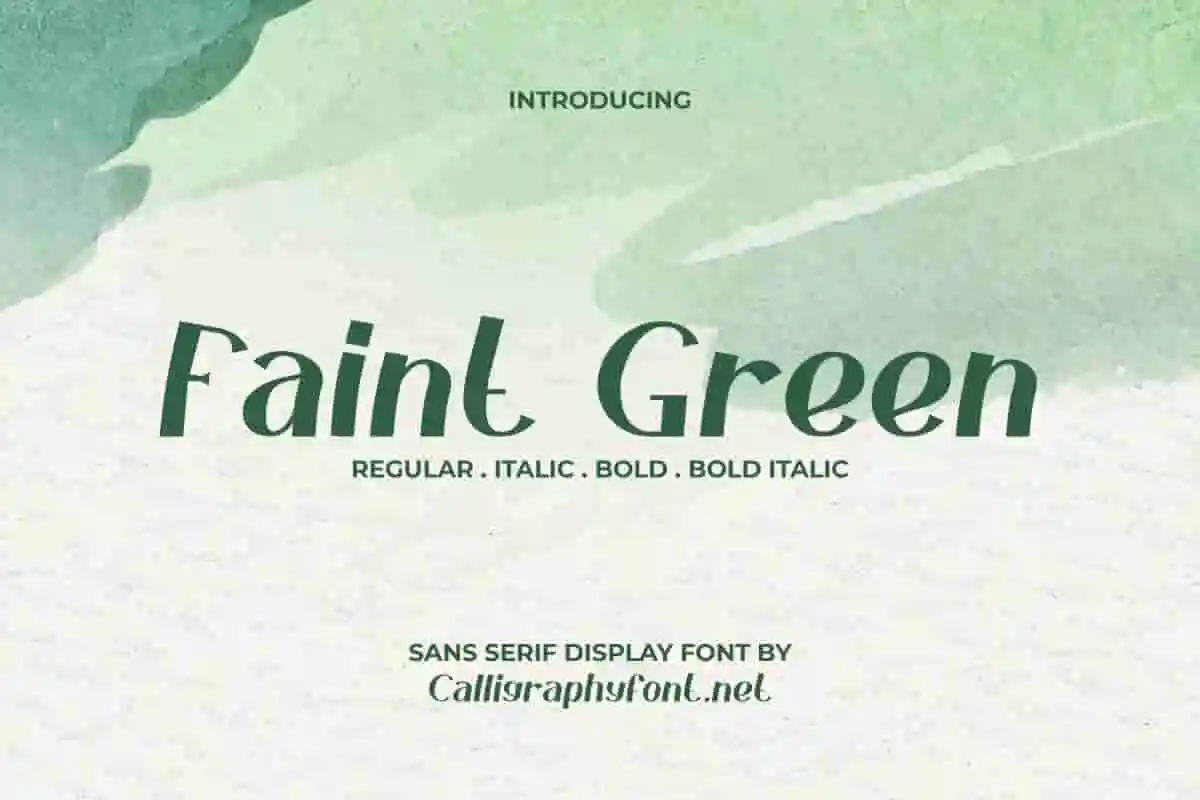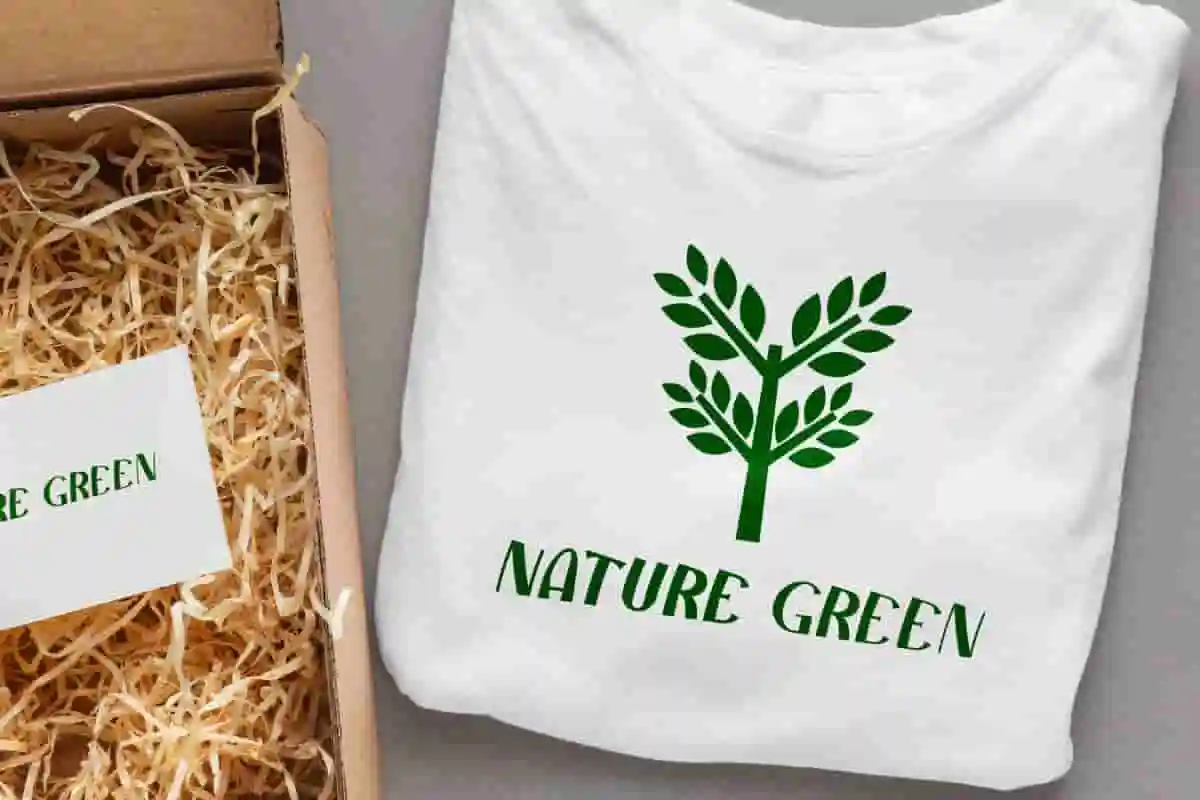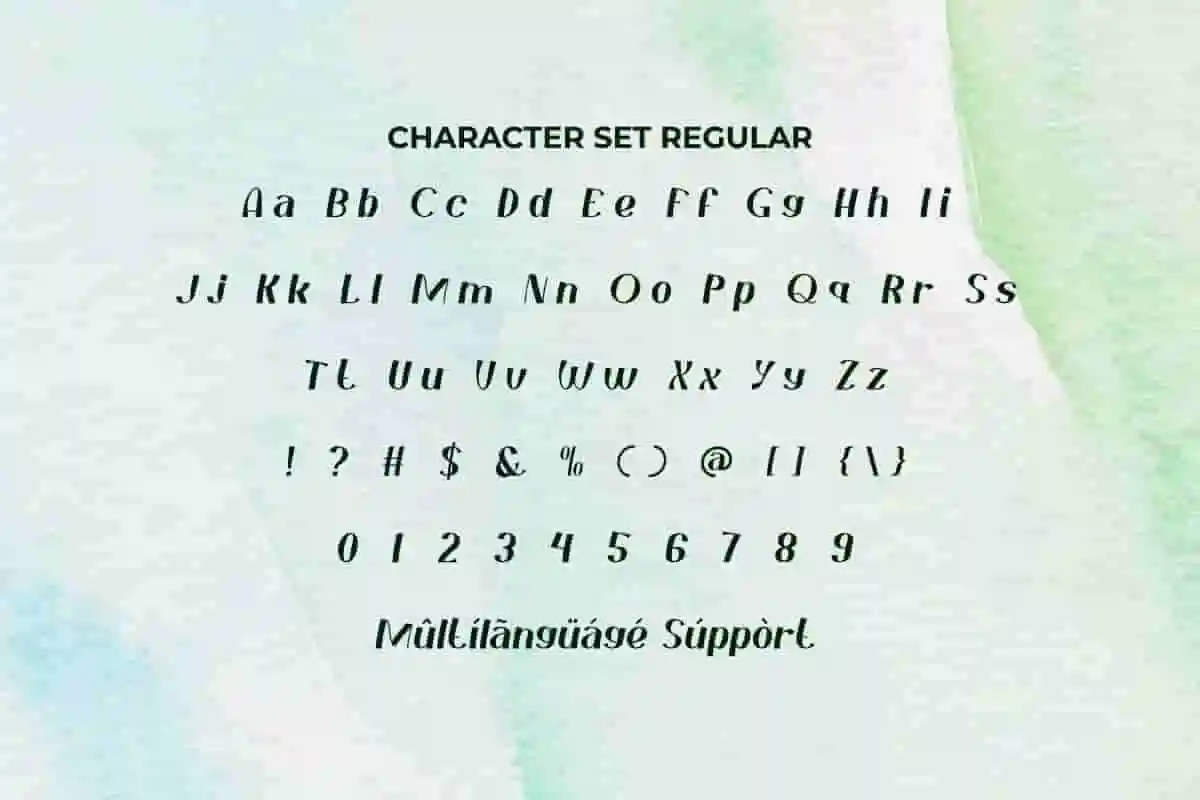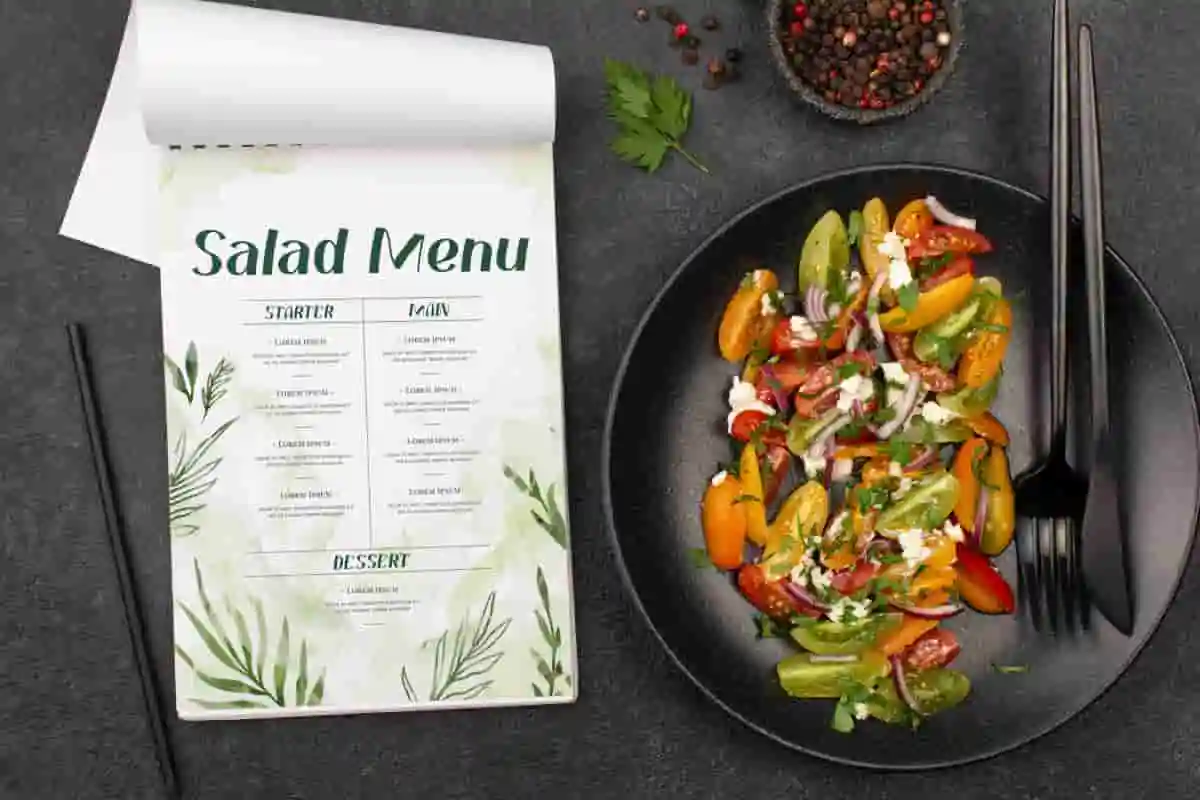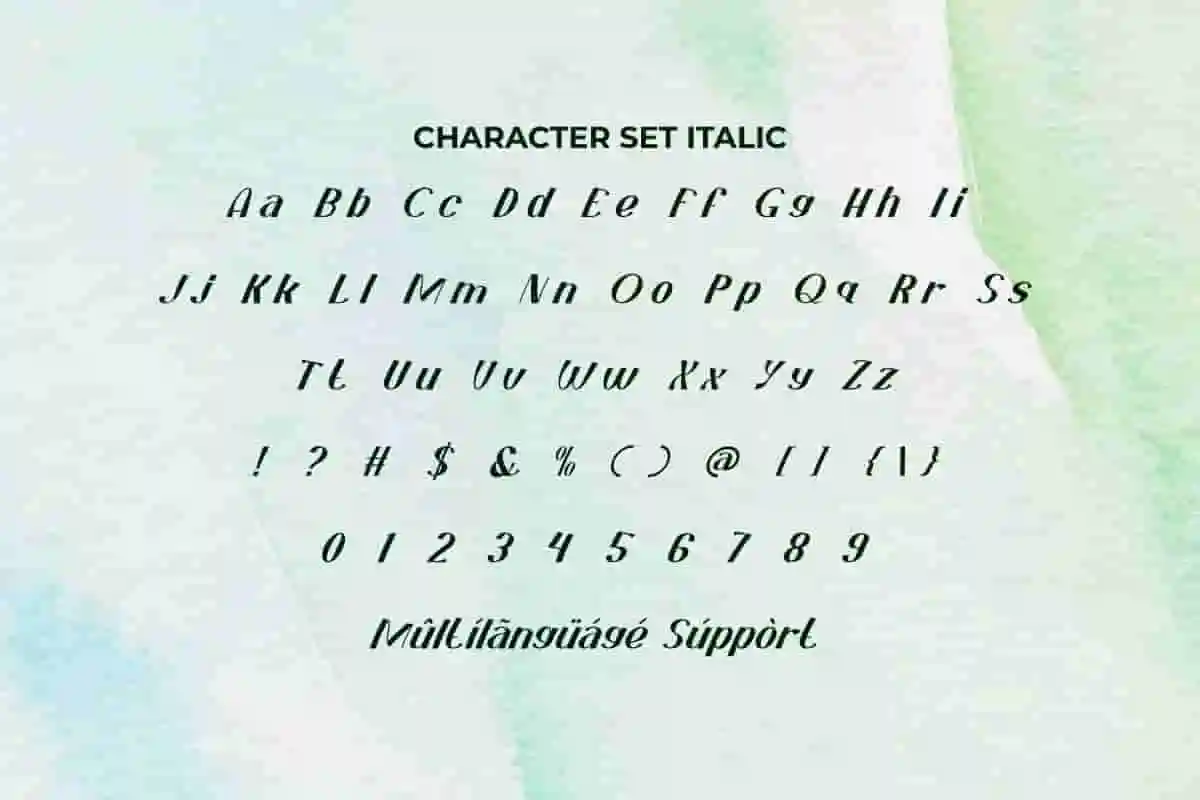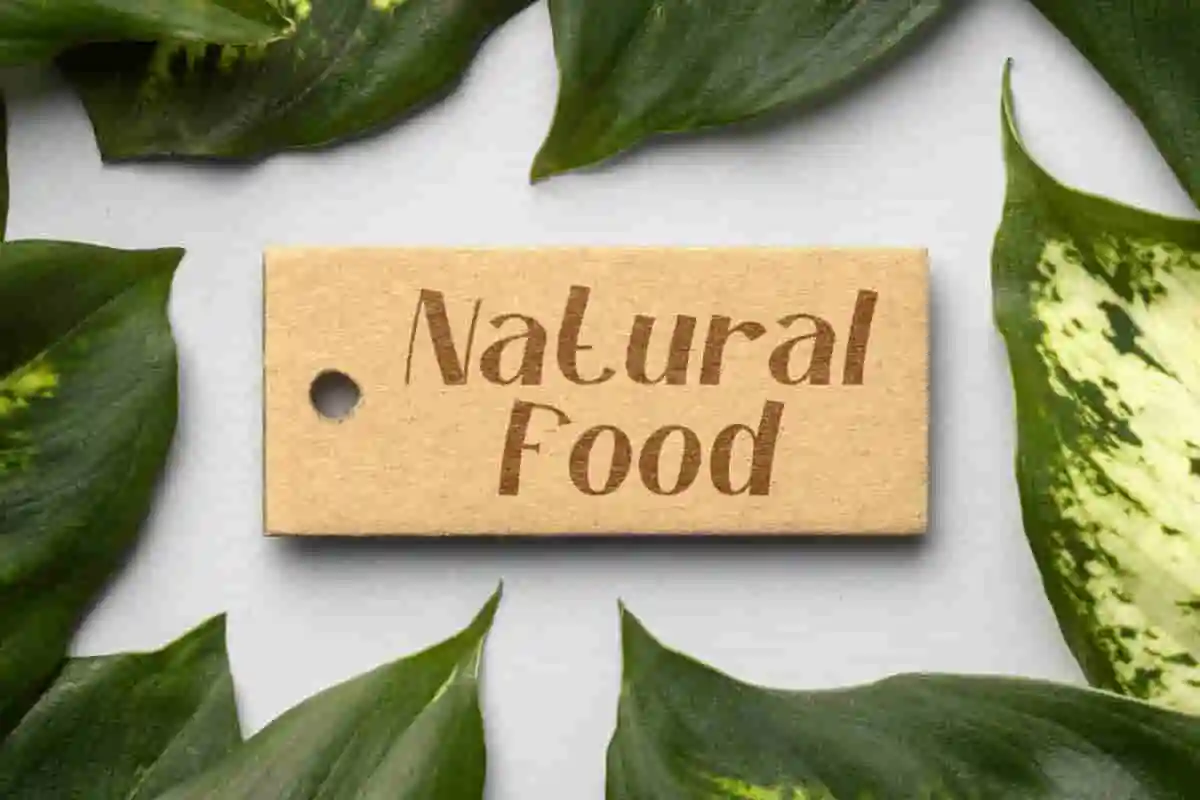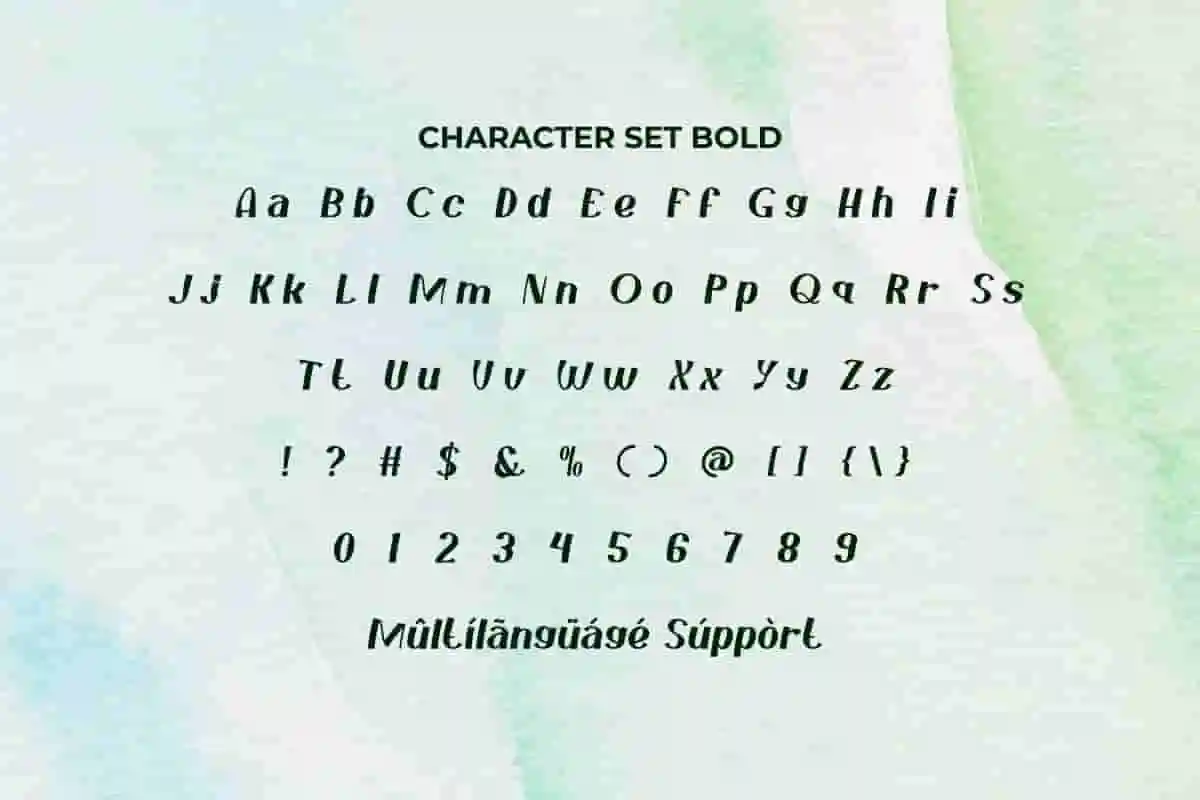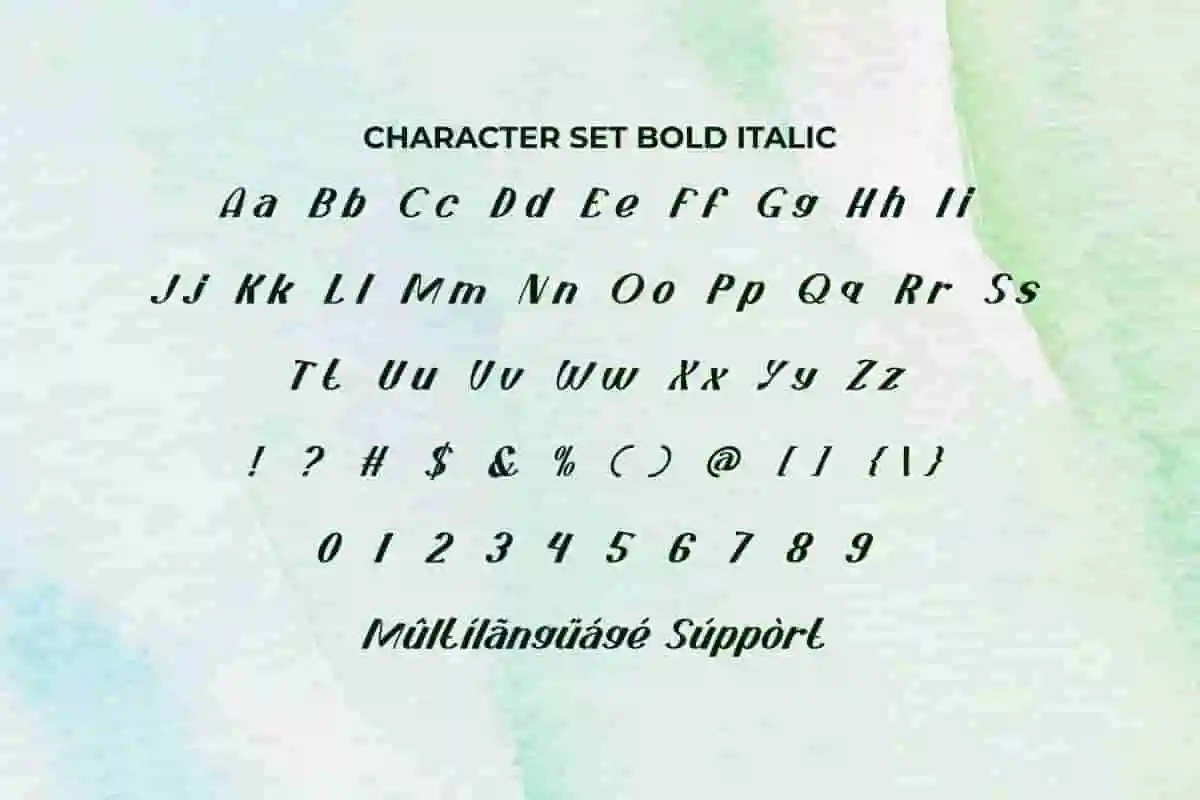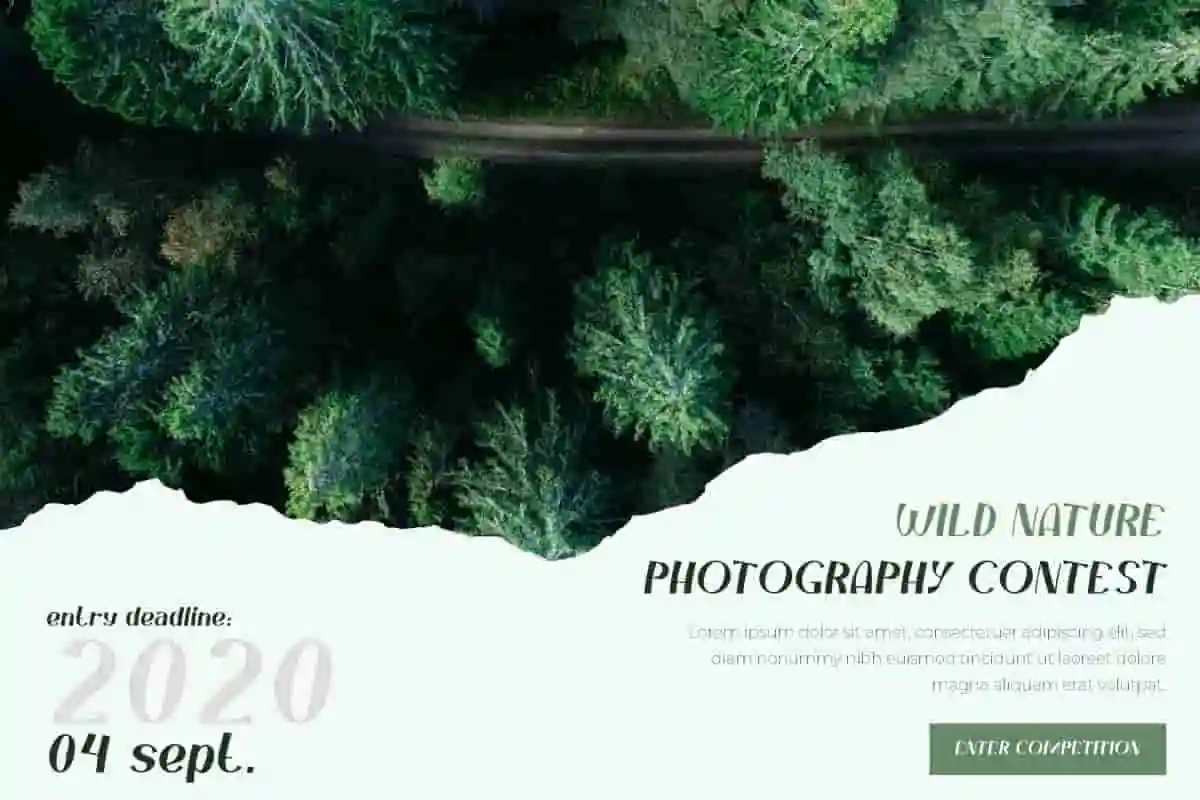
Faint Green Sans Serif Font
Faint Green Font is a unique display font that is packaged with four different styles and ready to blow your mind. It also makes things more flexible for brandings, billboard, menu, poster, tech startup, etc.
Faint Green Font is a unique unusual display font packed in four different styles: Regular, Italic, Bold, and Bold Italic. This font family gives a new feel to sans serif, besides having a fresh and stylish look, it is dominated by a bold emphasis on the lettering so it is flexible for any industry, such as author, café, culinary, environmental, furniture, handicraft, healthy food, jewelry, photography, pottery, printing, publishing, restaurant, skincare, writer, and much more.
Perfectly balanced between simplicity and sophistication, this modern sans serif font is ideal for branding, web design, social media, advertising, packaging, and more. Whether you’re a designer, entrepreneur, or content creator, Faint Green helps your message stand out with confidence and class. Meet Faint Green Sans Serif Font – a sleek, modern typeface designed to bring clarity, style, and professionalism to any creative project.
This modern sans serif font is perfect for creatives, entrepreneurs, and brands that want to communicate with confidence and simplicity. Whether you’re designing a website, logo, social media post, or marketing materials, Faint Green delivers a polished, contemporary look every time.
This sleek sans serif font is perfect for designers, marketers, and business owners who value clarity and aesthetics. With its clean lines, professional geometry, and effortless readability, Faint Green delivers elegance without complexity. Introducing the Faint Green Sans Serif Font — a modern, minimalistic typeface designed to give your branding, websites, and digital content a refined, contemporary edge.
- Clean Kerning & Spacing
Faint Green Font is a great choice to make it the main text (primary text) or paired with another type of font (secondary text). It will be ready to accompany you in any project, such as billboard, body text, brand logo, brochure, catalog, header, mockup, menu, packaging design, poster, product label, screen print, signage, stationery, watermark, website, etc.